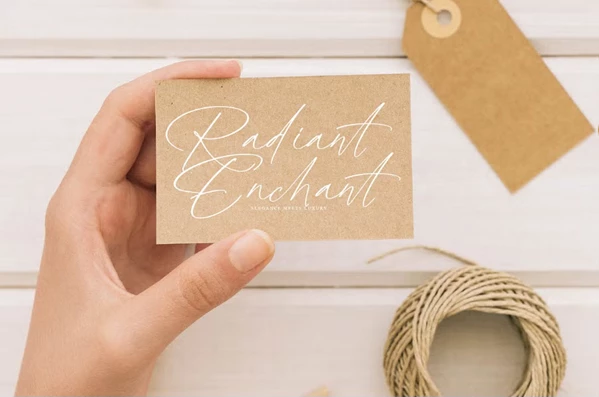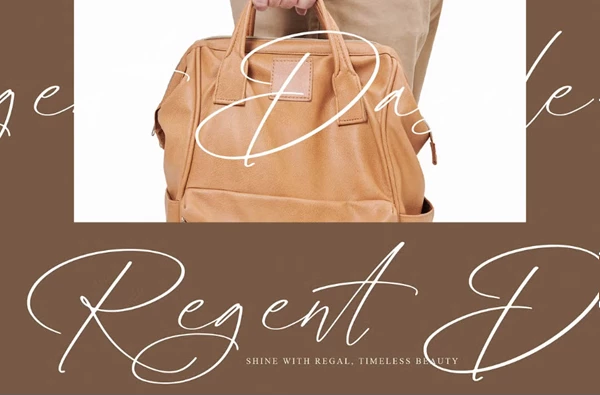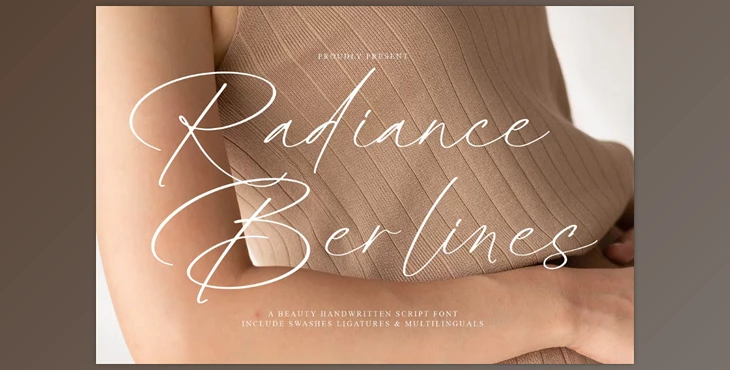
Radiance Berlines Script Font:
As a part of Operatype, Radiance Berlines is a gorgeous, beautiful handwritten script font that will surely elevate your designs by adding a luxurious touch. This font is perfect for any type of design, be it logos, branding, posters, packaging, invites, and many more. It comes in formats OTF, TTF and WOFF (and web fonts) and contains ligatures, alternates and swashes for further customization. Because of its PUA encoding, the font can easily be accessed without the need for complex design software and can be used seamlessly on both Mac and PC. Radiance Berlines is versatile and stylish, supporting 65 languages.